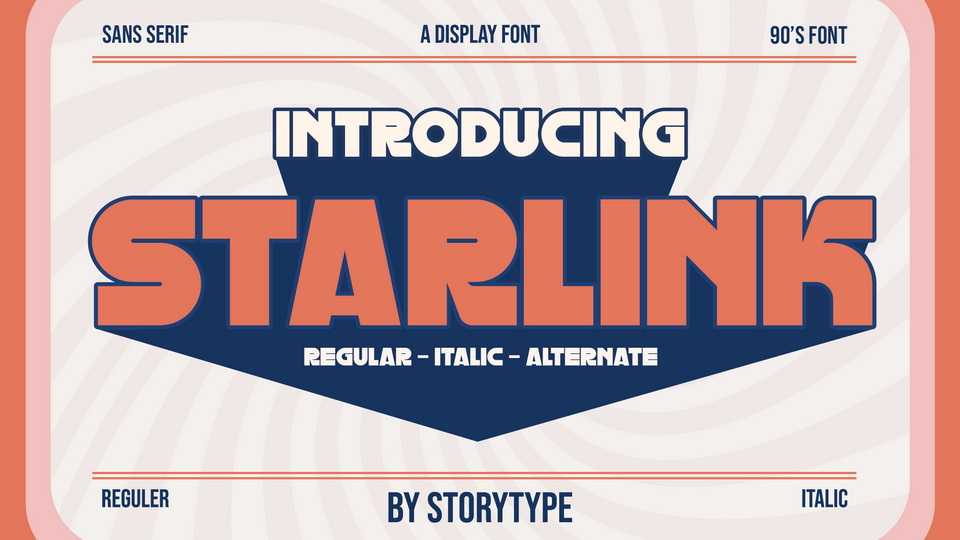
Download Starlink font, a bold display typeface that has own unique style and modern look. Starlink font is perfect for a logo, book or movie title design, fashion brand, magazine, clothes, lettering, quotes, and so much more.